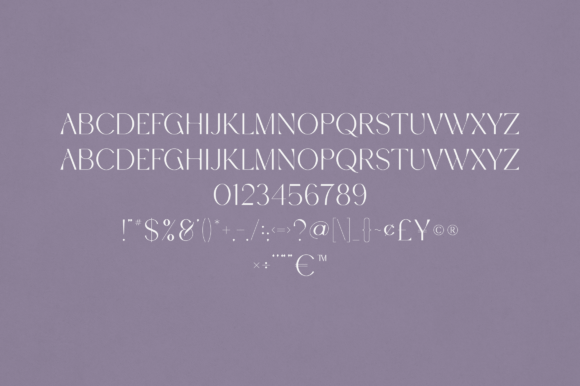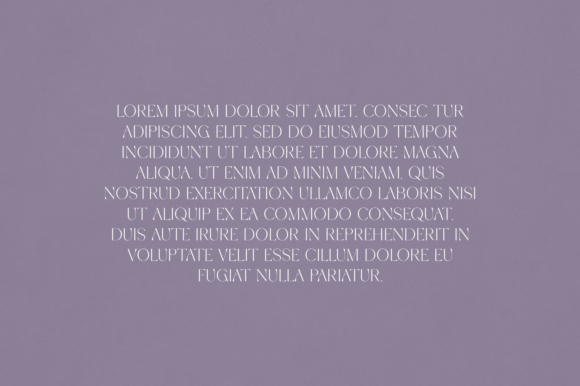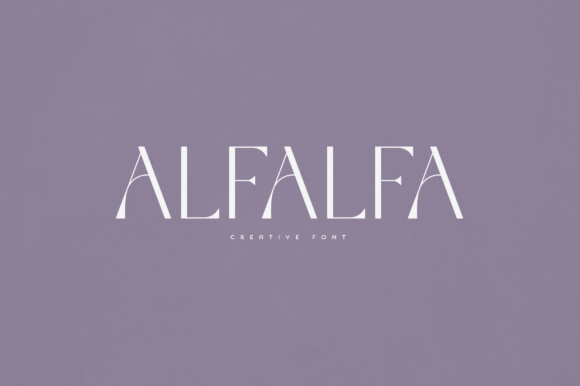
Introducing Alfalfa Font: Elevate Your Typography with Elegance and Versatility
In the world of typography, a font can make or break the visual appeal of a design project. For designers and crafters looking to add a touch of sophistication and uniqueness to their work, the Alfalfa font is an excellent choice. This elegant and versatile font is designed to make your typography truly stand out, whether you’re working on a logo, branding, headline, or plain text.
What Makes Alfalfa Font Special?
Alfalfa is more than just a font – it’s a design statement. Its elegant curves and lines are carefully crafted to add a touch of luxury and refinement to any design project. Here are some key features that make Alfalfa font a standout choice:
- Elegant and Versatile: Alfalfa’s design is both elegant and versatile, making it suitable for a wide range of design projects, from logos and branding to headlines and plain text.
- Unique Typography: With Alfalfa, you can create unique and eye-catching typography that sets your design apart from the rest.
- Highly Readable: Despite its elegant design, Alfalfa is highly readable, making it perfect for use in body text, headlines, and titles.
Alfalfa font is perfect for a variety of design projects, including:
- Branding Projects: Use Alfalfa to create elegant and sophisticated logos, business cards, and letterheads that reflect your brand’s personality.
- Home-Ware Designs: Add a touch of luxury to your home-ware designs, such as packaging, labels, and advertisements.
- Product Packaging: Make your product packaging stand out with Alfalfa’s elegant and eye-catching typography.
- Magazine Headers: Use Alfalfa to create stunning magazine headers, titles, and section headings that grab attention.
- Text Overlays: Add a stylish text overlay to any background image with Alfalfa, making your design truly unique.
Why Choose Alfalfa Font?
With so many fonts available, why choose Alfalfa? Here are some compelling reasons:
- Unique Design: Alfalfa’s elegant and versatile design sets it apart from other fonts, ensuring your typography stands out.
- Time-Saving: With Alfalfa, you can create professional-looking typography quickly and easily, saving you time and effort.
- Customizable: Alfalfa is highly customizable, allowing you to adjust the font to suit your design needs.
Tips for Using Alfalfa Font
To get the most out of Alfalfa font, here are some tips:
- Experiment with Sizes: Alfalfa looks great in various sizes, so experiment to find the perfect size for your design.
- Play with Colors: Try different colors and gradients to add depth and interest to your typography.
- Mix and Match: Combine Alfalfa with other fonts to create a unique and eye-catching typography.
In conclusion, Alfalfa font is an excellent choice for designers and crafters looking to elevate their typography with elegance and versatility. With its unique design, high readability, and customizability, Alfalfa is perfect for a wide range of design projects. Whether you’re working on branding, packaging, or simply want to add a stylish text overlay to a background image, Alfalfa font is sure to impress.